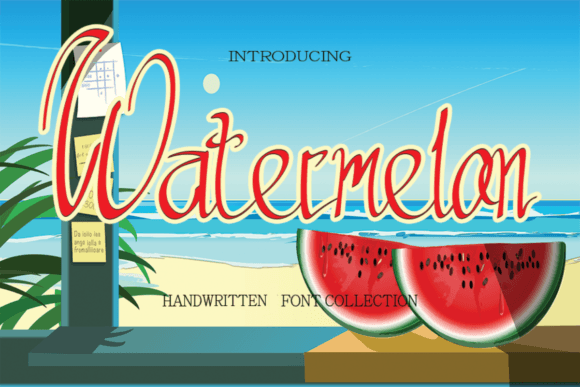
Introducing Watermelon Font - A Burst of Fruity Charm for Your Creative Endeavors!
Immerse yourself in the sweet and refreshing world of Watermelon Font, a delightful creation by Millea Creative. This vibrant script font is inspired by the juicy essence of summer fruits, capturing the essence of warm days and blissful moments. With its playful and inviting curves, Watermelon Font is the perfect choice for adding a touch of whimsy and charm to your projects.
Unleash your creativity and let Watermelon Font transform your designs into a visual feast. Imagine the possibilities - stunning invitations that evoke the joy of a summer picnic, eye-catching social media posts that pop with personality, and greeting cards that spread warmth and cheer. Watermelon Font is the perfect companion for your creative journey, inviting you to explore a world of endless possibilities.
Whether you're a seasoned designer or just starting your creative adventure, Watermelon Font is your trusty ally. Its versatility shines in various applications, from captivating film scripts that draw the audience into your story to enchanting stationary art that reflects your unique style. With Watermelon Font, you'll discover a font that harmoniously blends playfulness and sophistication, making it a must-have for any creative toolbox.